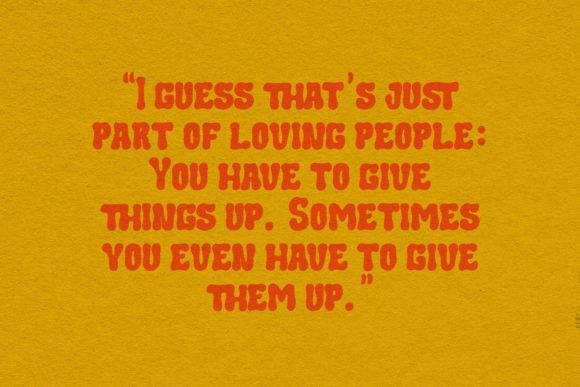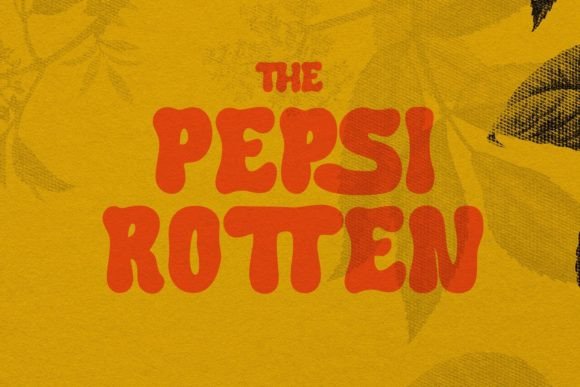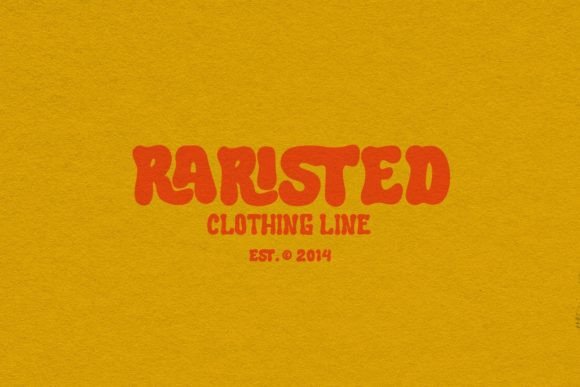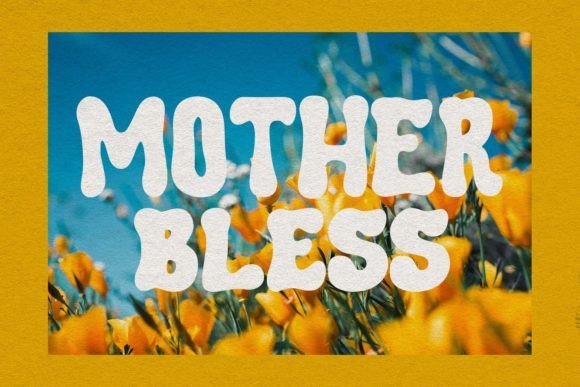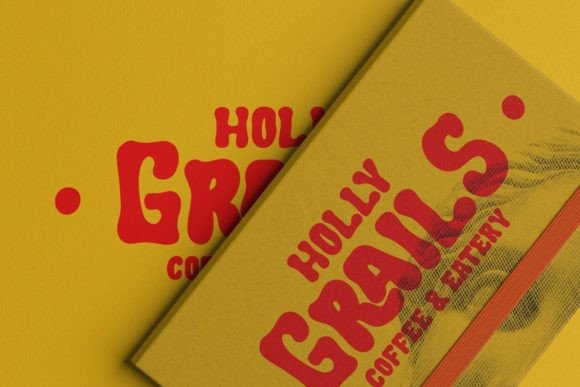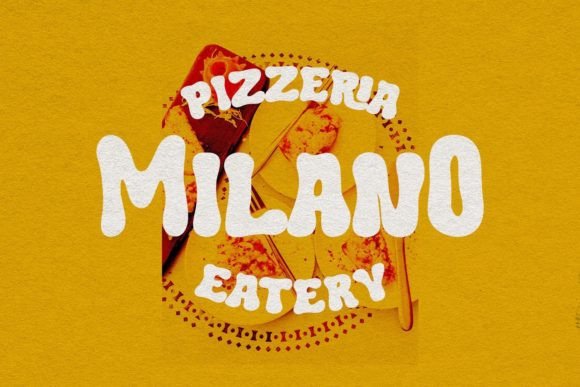
Introducing Goskha Font: Elevate Your Designs with Bold Strokes and Endless Creativity
In the world of typography, a font can make or break a design. It’s the foundation upon which creativity is built, and the right choice can elevate a project from ordinary to extraordinary. For designers and crafters looking to add a touch of personality and flair to their work, Goskha Font is an exceptional choice. This lovely display font features bold strokes and fun characters with a bit of ligature, giving you the tools you need for extra creative expression.
The Characteristics of Goskha Font
Goskha Font is not just any ordinary font. Its distinctive features make it stand out in the world of typography:
- Bold Strokes: Goskha’s bold strokes give it a strong and confident appearance, making it perfect for designs that require a statement piece.
- Fun Characters: The font comes with a set of fun and playful characters that can add a whimsical touch to any design.
- Ligature: The inclusion of ligatures in Goskha Font allows for a more creative and fluid design, enabling you to connect letters and characters in unique and interesting ways.
Versatility of Goskha Font
One of the key benefits of Goskha Font is its versatility. It’s a font that can be used in a variety of design projects, including:
- Logo Design: The bold and confident nature of Goskha makes it an excellent choice for logo design. It can help your brand stand out and make a lasting impression.
- Social Media: Use Goskha Font to create eye-catching social media posts, stories, and banners that capture the attention of your audience.
- Movie and Book Titles: The font’s unique and creative feel makes it perfect for movie and book titles, adding a touch of personality to your project.
- Short and Long Text: Whether you’re working with short phrases or longer blocks of text, Goskha Font remains clear and legible, making it a practical choice for a wide range of design needs.
Pairing Goskha Font with Other Fonts
For maximum design impact, pairing Goskha Font with other fonts can create a visually appealing contrast. It’s particularly effective when paired with:
- Sans Serif Fonts: The clean lines of sans serif fonts complement Goskha’s bold strokes, creating a balanced and modern look.
- Serif Fonts: Pairing Goskha with serif fonts adds a touch of sophistication and elegance to your design, perfect for projects that require a bit of refinement.
Tips for Making Stunning Work with Goskha Font
To get the most out of Goskha Font and create stunning work, consider the following tips:
- Experiment with Ligatures: Don’t be afraid to play around with the ligatures in Goskha Font. They can add a unique touch to your design and make it stand out.
- Use it as a Headline Font: Goskha’s bold nature makes it perfect for headlines. Use it to grab attention and draw the reader in.
- Mix and Match: Try pairing Goskha Font with other fonts to create a visually interesting design. The contrast can add depth and personality to your project.
- Consider Your Audience: Make sure the playful nature of Goskha Font aligns with your project’s tone and audience. It’s perfect for projects that require a bit of whimsy and creativity.
Goskha Font is more than just a font – it’s a tool for creativity and self-expression. With its bold strokes, fun characters, and ligatures, it offers endless possibilities for designers and crafters looking to add a personal touch to their work. Whether you’re creating a logo, working on a social media campaign, or designing a book or movie title, Goskha Font is an excellent choice. So why settle for ordinary when you can make a statement with Goskha? Dive into the world of creative typography and elevate your designs to new heights.